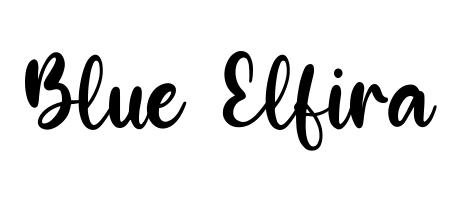
Blue Elfira
Blue Elfira, a font whispering secrets in a cursive script, dances across the page with elegant swirls and playful loops. Its delicate strokes evoke a sense of whimsical charm, perfect for adding a touch of romantic flair to invitations, stationery, or any project needing a touch of grace.